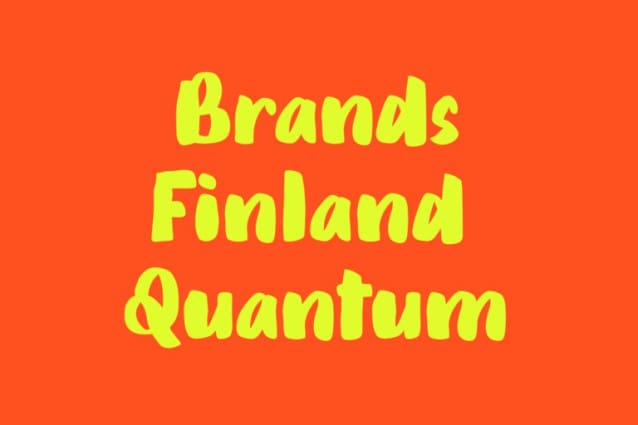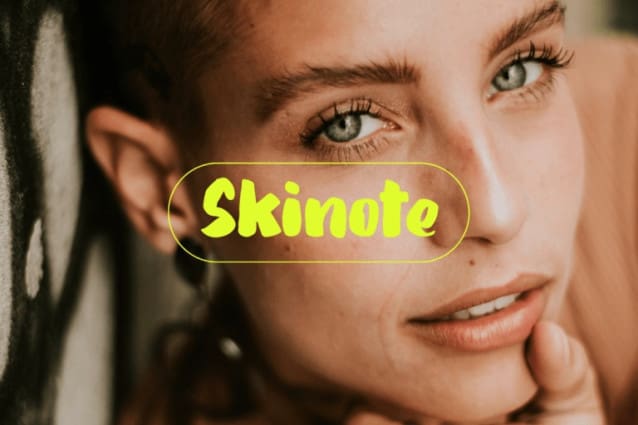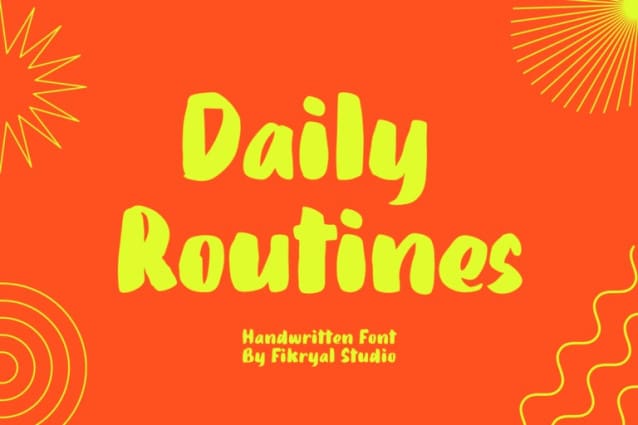
Daily Routines Font
Daily Routines Font – Handwritten Display Font is a delightful and charismatic typeface that effortlessly captures the essence of casual elegance. With its carefully crafted strokes and artful imperfections, this font exudes a sense of handmade authenticity that is both inviting and versatile.
Designed with meticulous attention to detail, “Daily Routines” showcases a harmonious blend of playful curves and well-balanced letterforms, making it a perfect choice for projects that seek to strike a harmonious balance between approachability and sophistication.
Its smooth and flowing lines lend a sense of fluidity and ease, evoking a feeling of effortlessness and natural rhythm. The irregularities in each letter lend a unique charm, reminiscent of handwritten notes penned with care.
The “Daily Routines” Handwritten Display Font is specifically tailored for projects that demand a warm and friendly touch, such as invitations, greeting cards, product packaging, and branding materials. It easily conveys a sense of personal connection, making it ideal for conveying heartfelt messages or highlighting the human element in design.
Whether utilized for digital or print media, this font ensures legibility and readability, even in smaller sizes. Its captivating appearance adds a touch of personality to any text, making it stand out while retaining a sense of tasteful subtlety.
Embrace the captivating allure of the “Daily Routines” Handwritten Display Font to infuse your designs with a genuine and endearing character, elevating them to new levels of aesthetic appeal and resonating with your audience on a profound level.